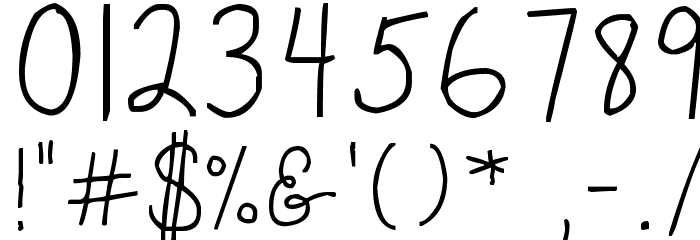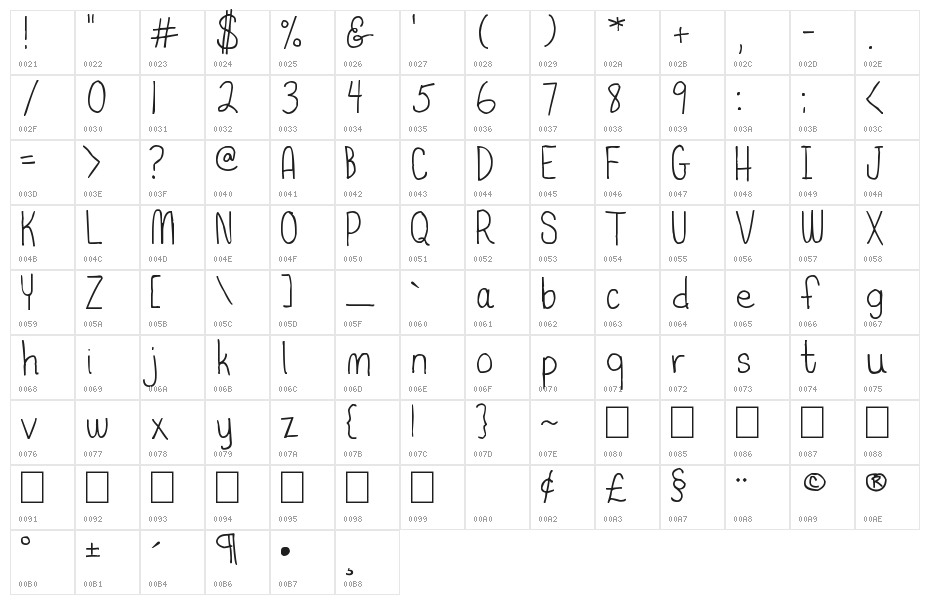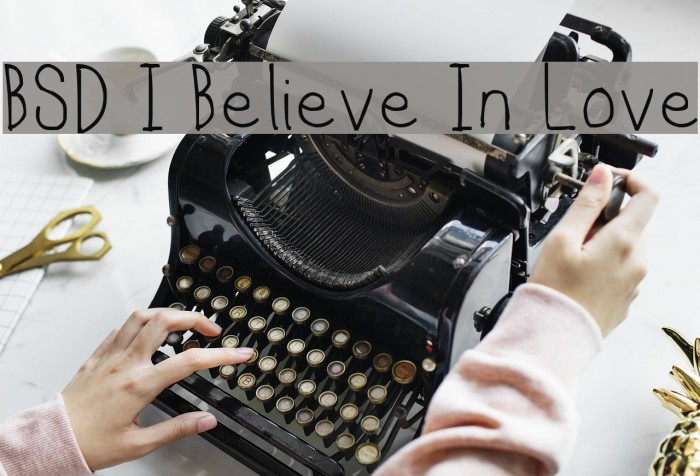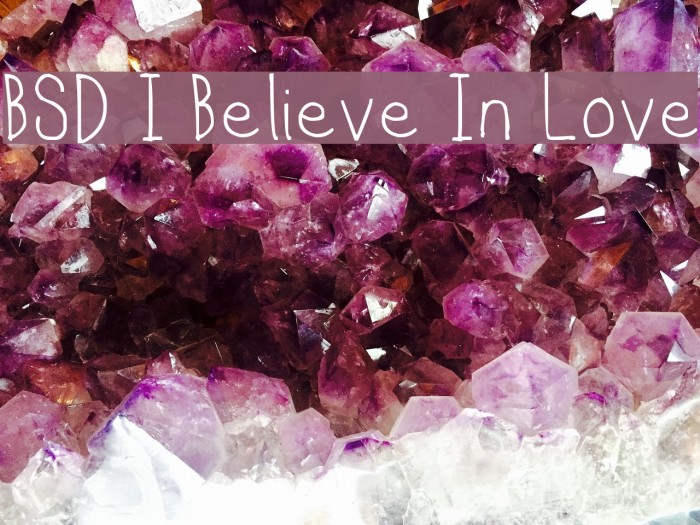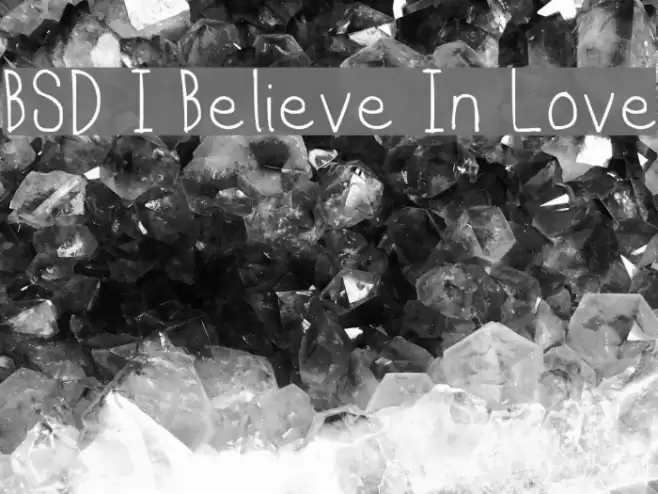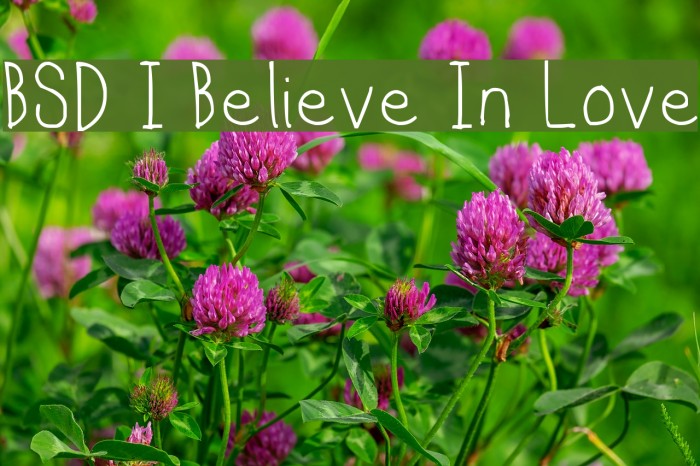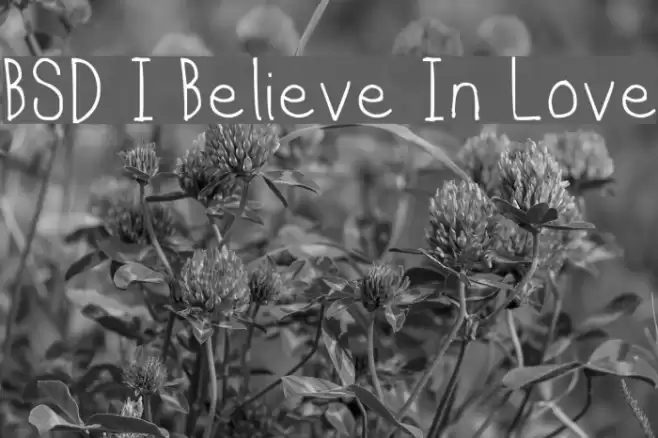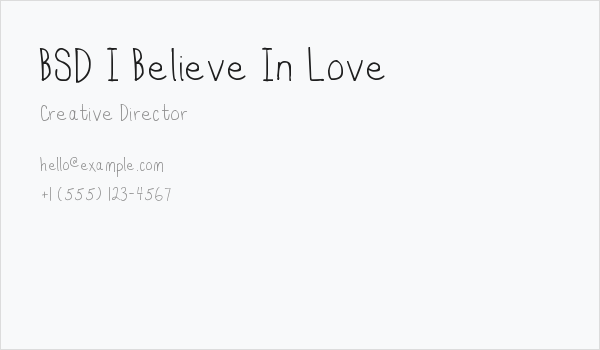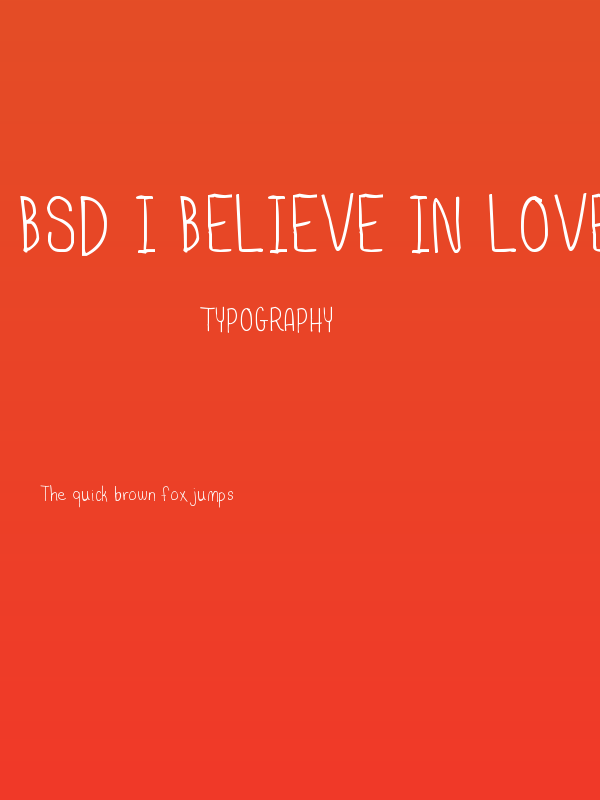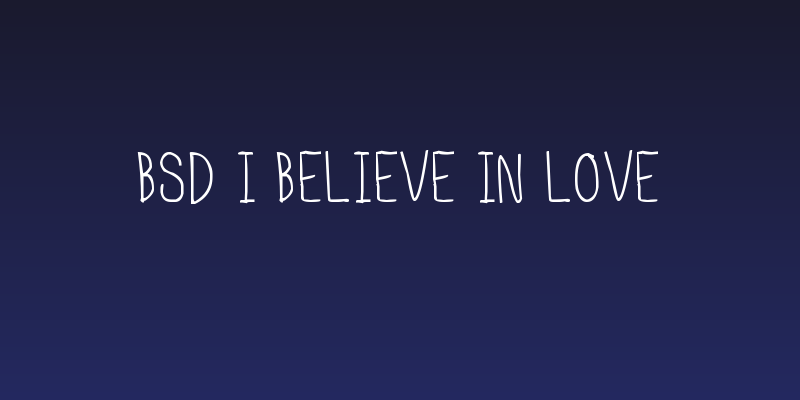
BSD I Believe In Love Font
BSD I Believe In Love Description
This font features a playful and casual handwritten style, characterized by its uneven strokes and slightly irregular letterforms. The uppercase letters are tall and narrow, while the lowercase letters maintain a consistent height, giving the font a cohesive appearance. The numbers are rounded and match the overall informal aesthetic. Special characters are included, maintaining the same whimsical style. The font's design is approachable and friendly, making it suitable for projects that require a personal touch.
| Use Case | Headlines, Informal text, Personal projects |
| Proposed Projects | Ideal for greeting cards, children's books, casual invitations, and personal branding projects. |